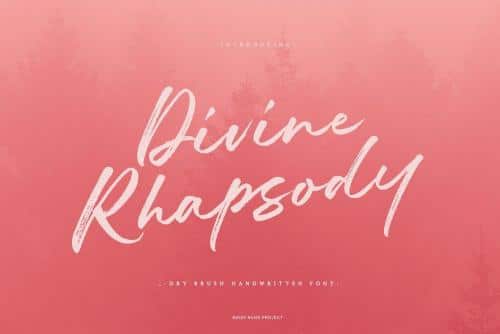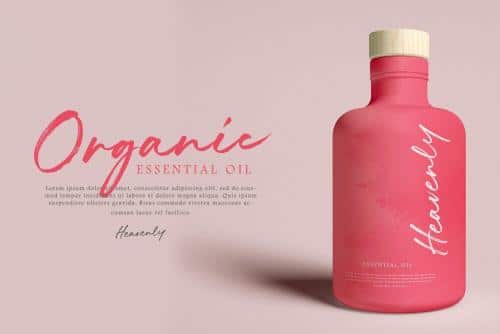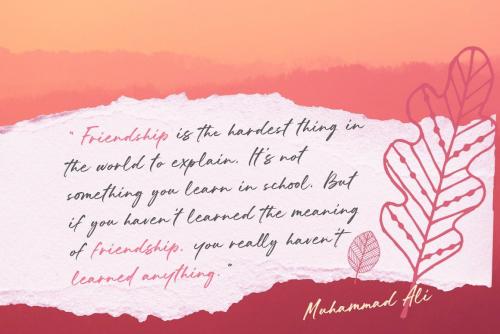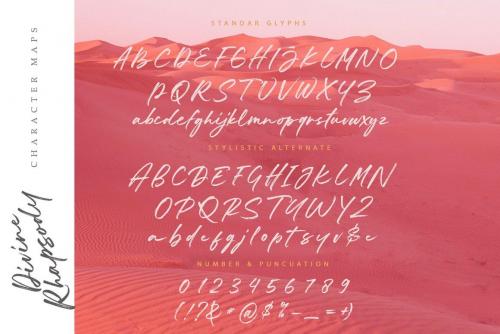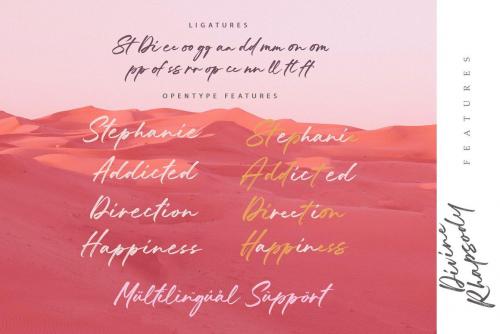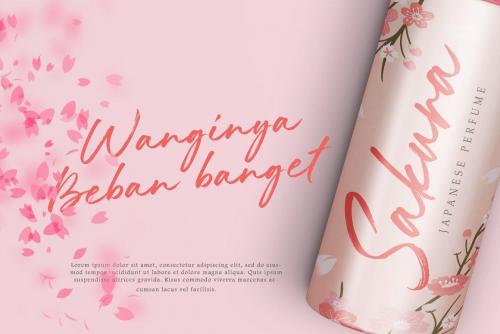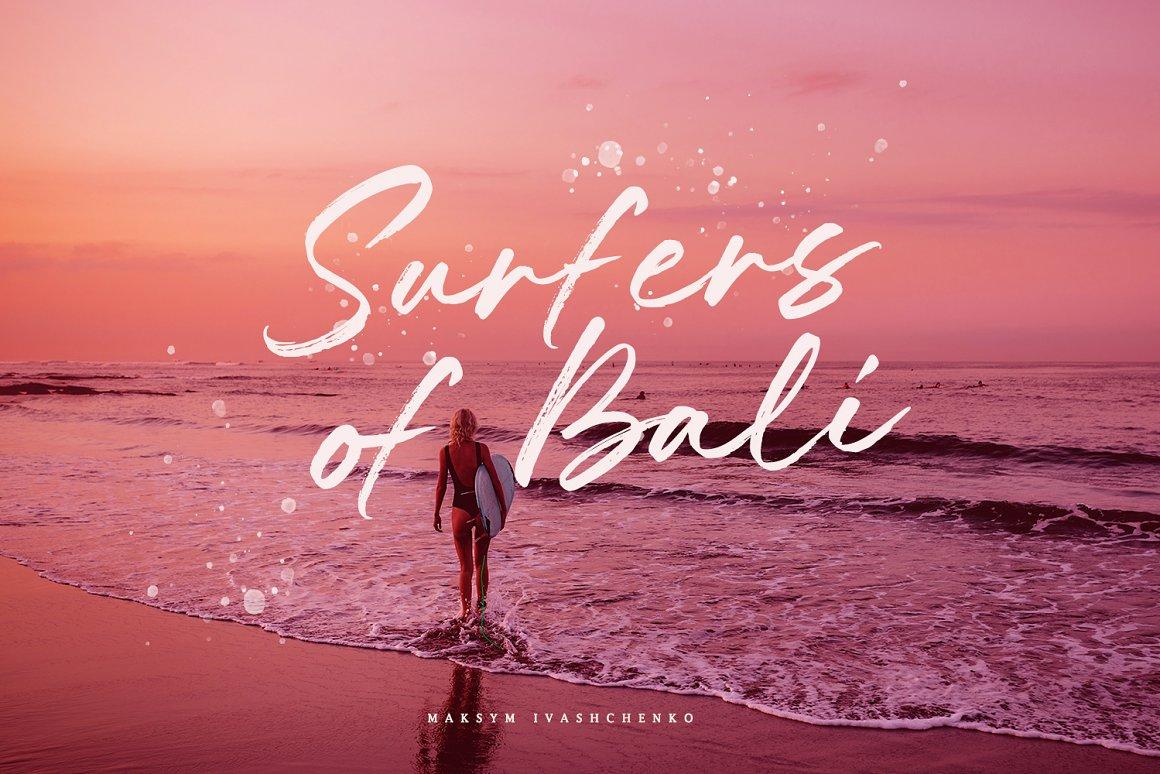
Introducing Divine Rhapsody with quick strokes, resulting in natural quality scratches, This font perfect for signature, branding, wedding, fashion, photography title, poster, social media, ad banner, book cover, packaging, handwritten quotes, greeting cards, and advertising.
- Designer: NUGS